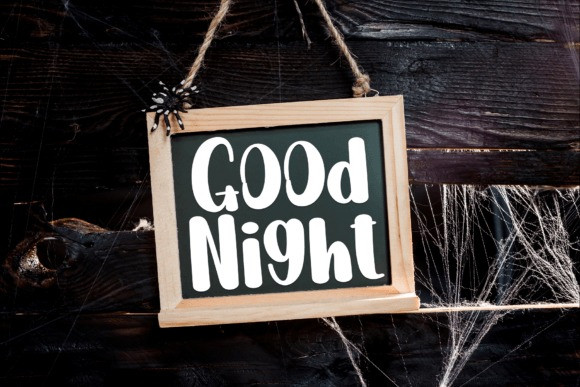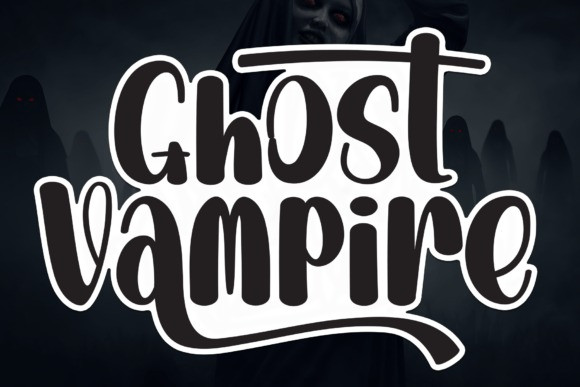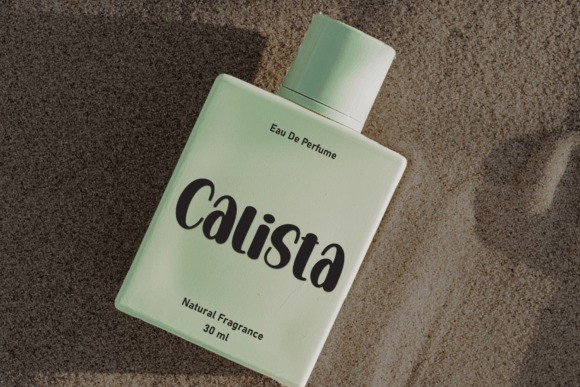
Ghost Vampire Font
Ghost Vampire Font is a versatile, stylish font perfect for a wide spectrum of applications such as greeting cards, headlines, and many more! Add it to any of your creative projects, and it will give them a romantic and exquisite feel.